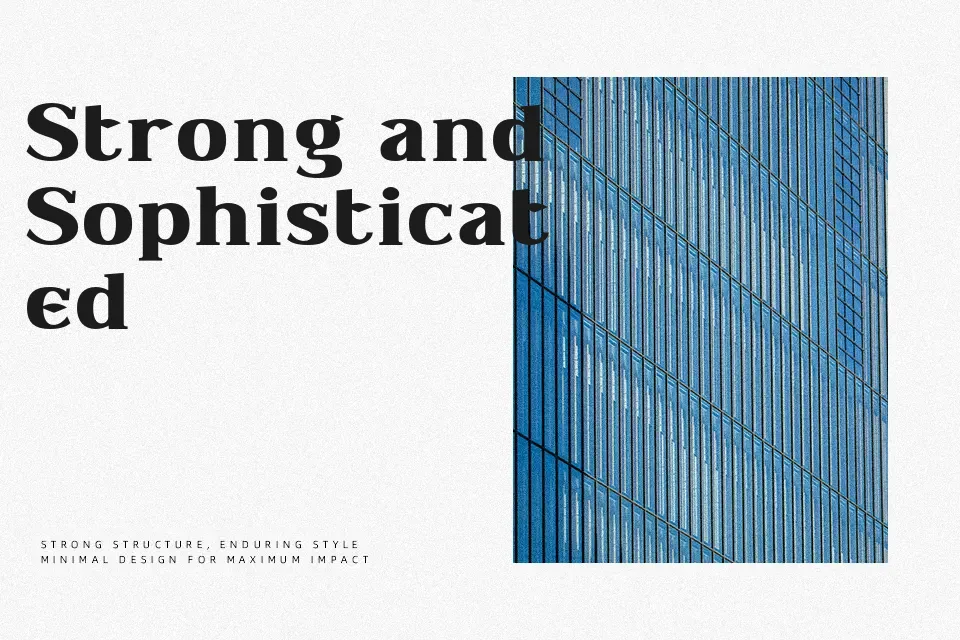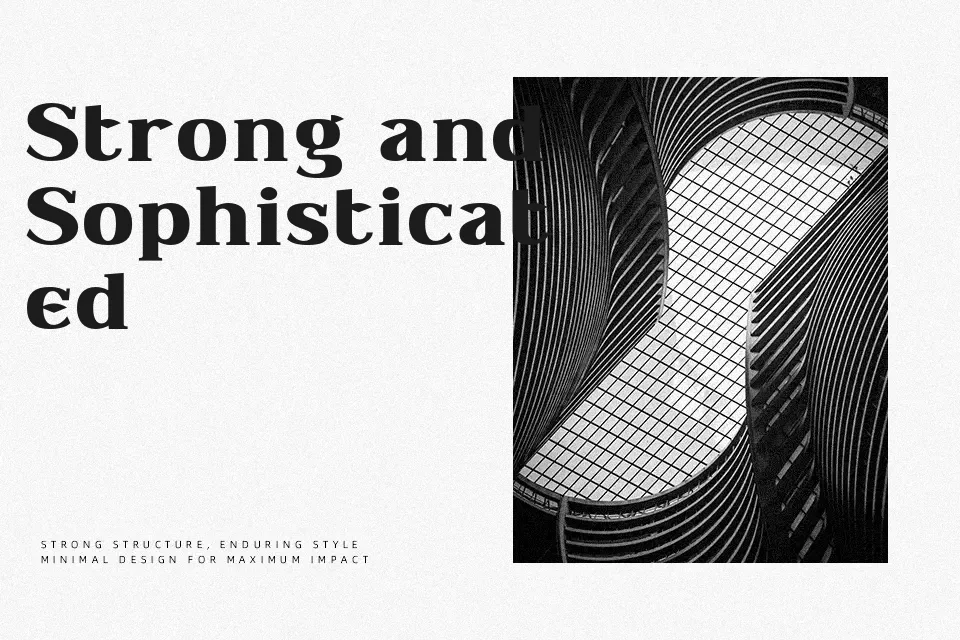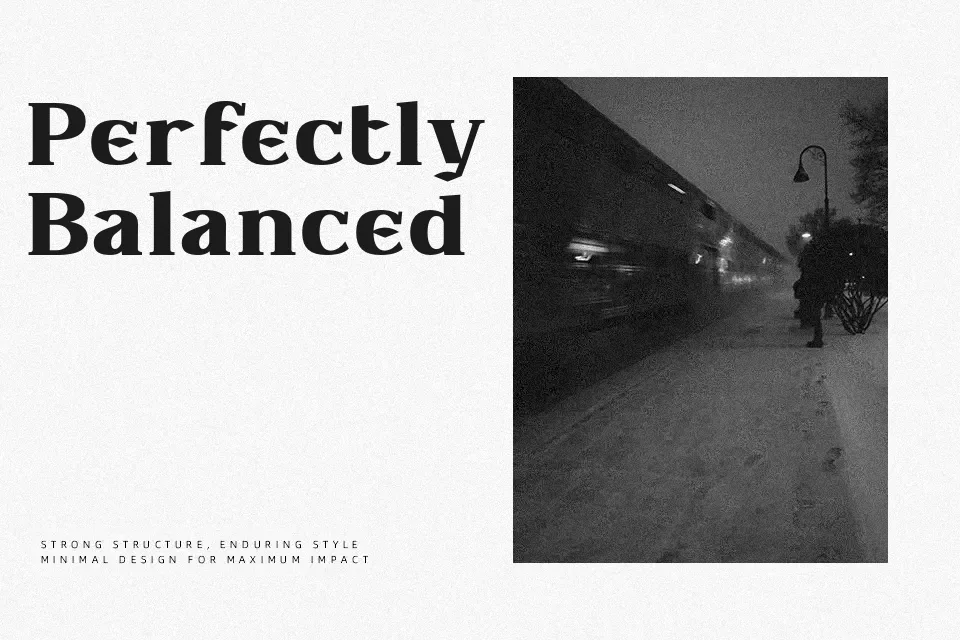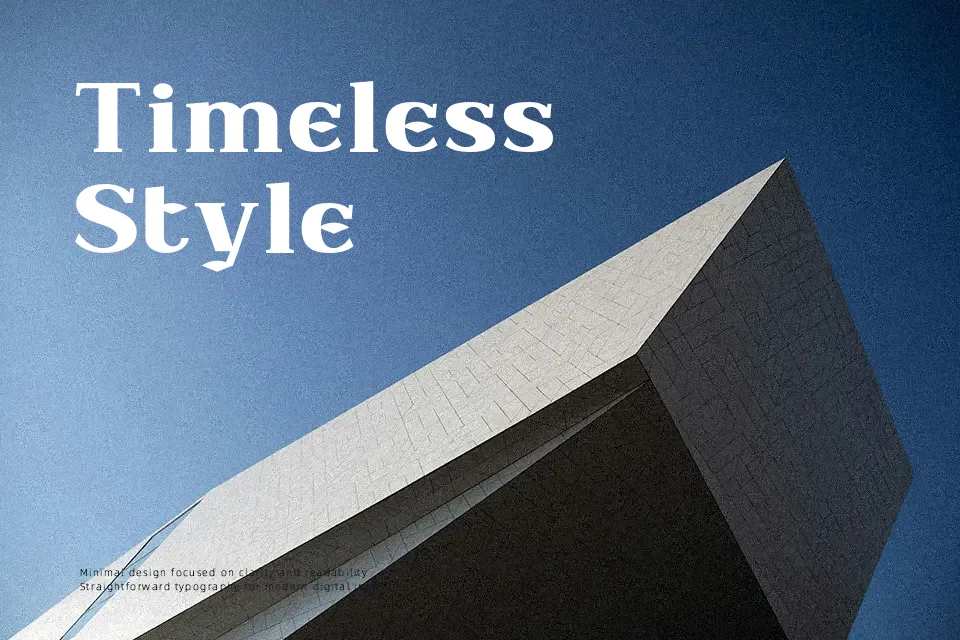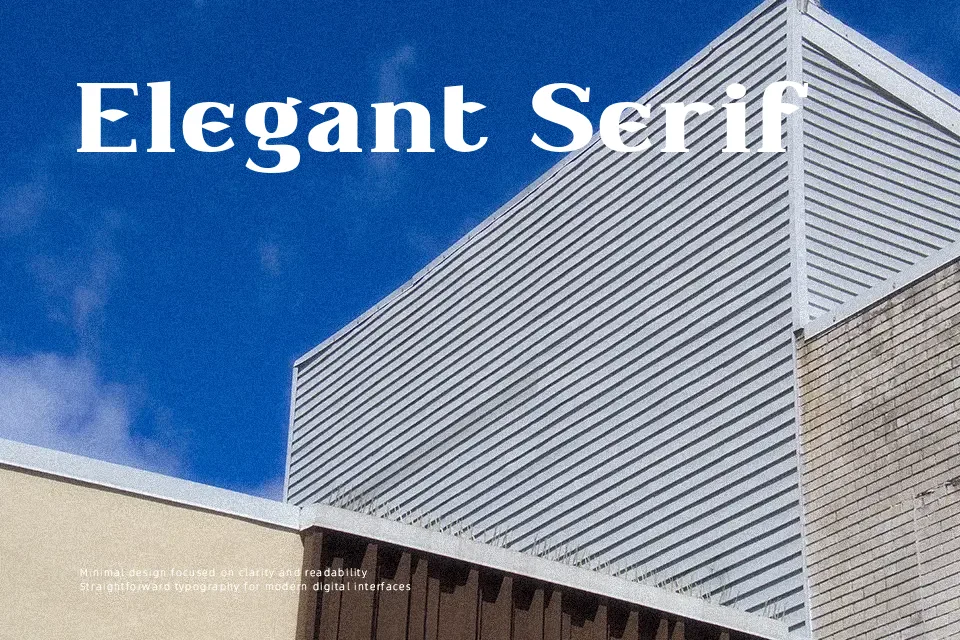
Djaman Doeloe Font
Designed by Ikiiko Type
Djaman Doeloe is a high-contrast serif display font with heavy vertical strokes, carved-looking serifs, and decorative counters that give it an old print feel. The spacing is fairly tight, so it reads with more attitude than restraint. It works best in short phrases, title treatments, menu headers, and packaging that wants a nostalgic Southeast Asian or colonial-era mood. I would use it when the design needs character right away, especially on posters or branding with a historical tone. It is less convincing in long paragraphs, minimalist layouts, or small interface text where the ornament starts to feel busy.
Perfect for branding, packaging, and poster, with a artistic and decorative style.